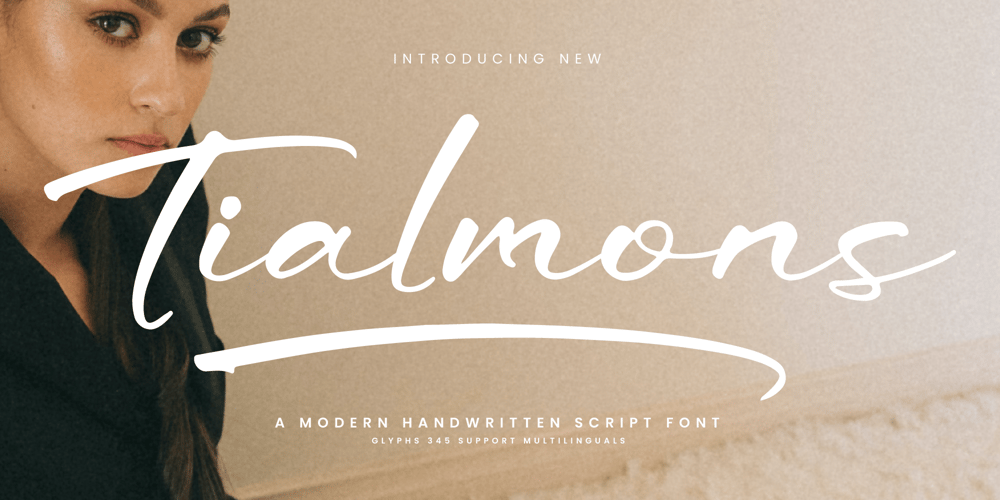
Tialmons
Tialmons font
Tialmons Font Family was designed by Ranndy Rizky Febrian and published by Integritype. Tialmons contains 2 styles and family package options. Tialmons – A Modern Handwritten Script Font, from Integritype Studio, perfect for any project like: logos, branding projects, homewares designs, product packaging, mugs, quotes, posters, shopping bags, t-shirts, covers books, business cards, invitation cards, greeting cards, labels, photography, watermarks, special events and all your other luxury projects that require a premium taste.